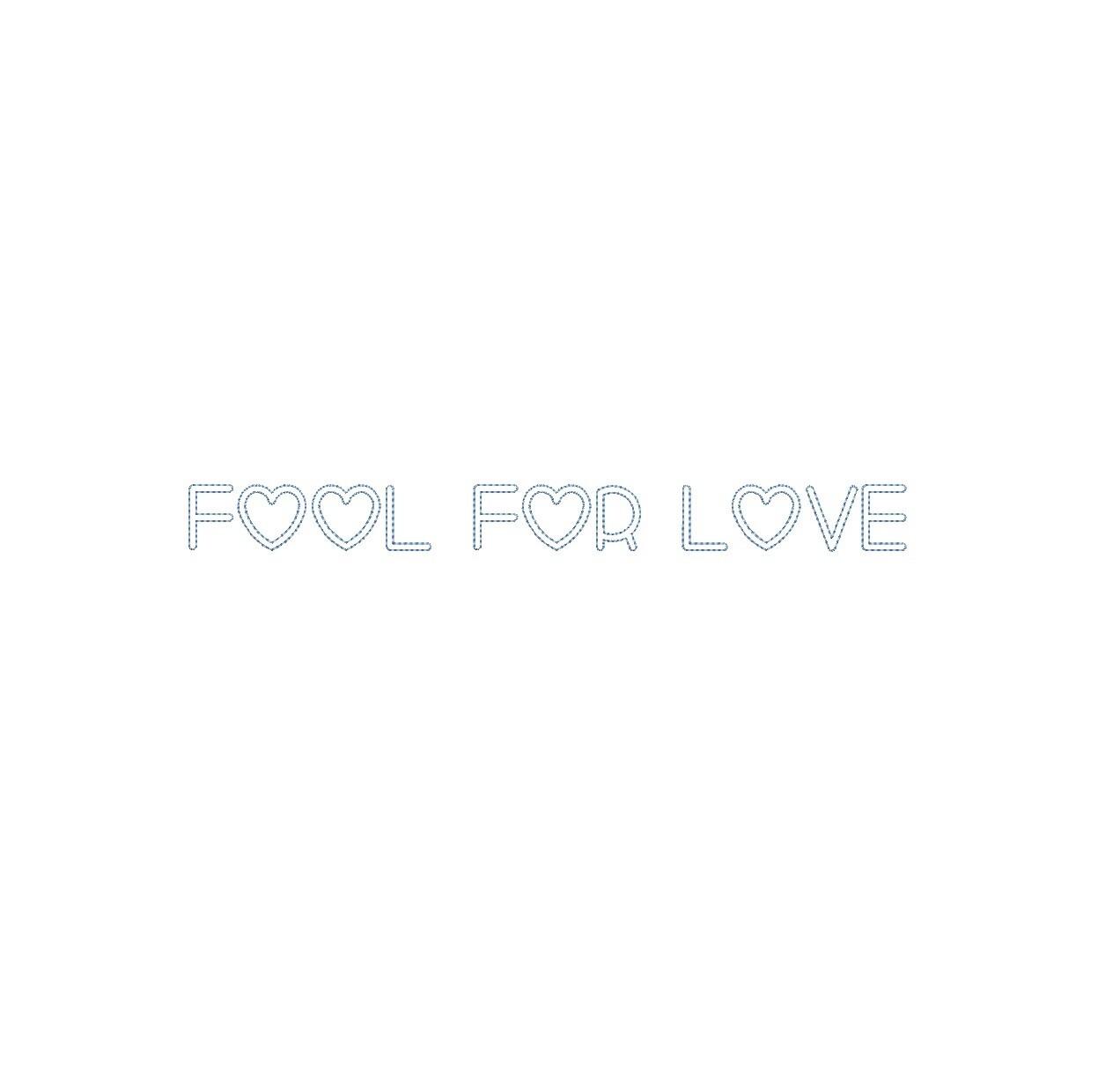
Elevate your embroidery with the Fool For Love Bean Outline ESA font. Crafted for compatibility with Wilcom Studio e4.5.6 and Hatch 3 versions and beyond, this font adds a touch of romance and creativity to your designs. Its charming bean outline style brings depth and uniqueness, ideal for monograms, labels, and decorative elements. Seamlessly integrate and achieve precise stitching for enhanced embroidery projects. Discover a world of creative possibilities in Wilcom Studio and Hatch software with the Fool For Love Bean Outline ESA font. Elevate your designs and evoke emotions today with this exceptional font.